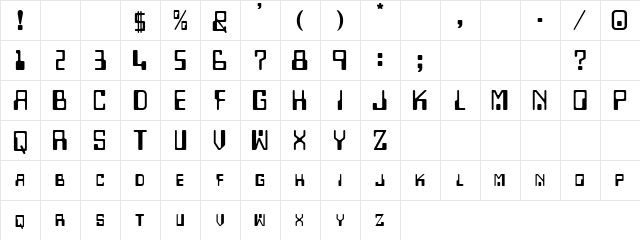
Demert Tovi Regular
Design Context for Demert Tovi Typeface
Demert Tovi is a composed and adaptable typeface that performs quietly and consistently across a wide range of design contexts.